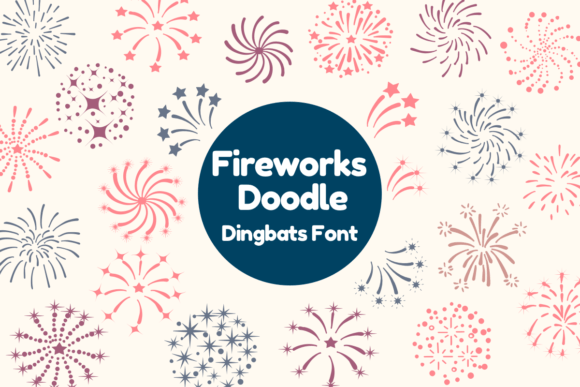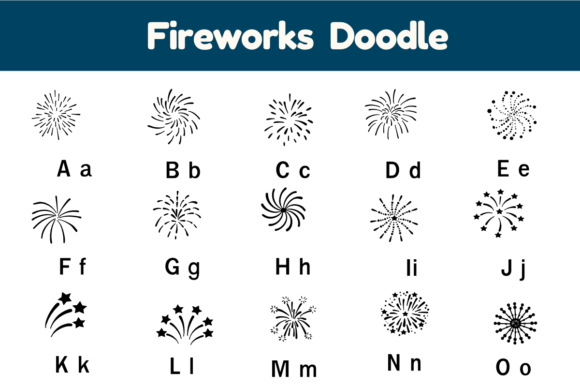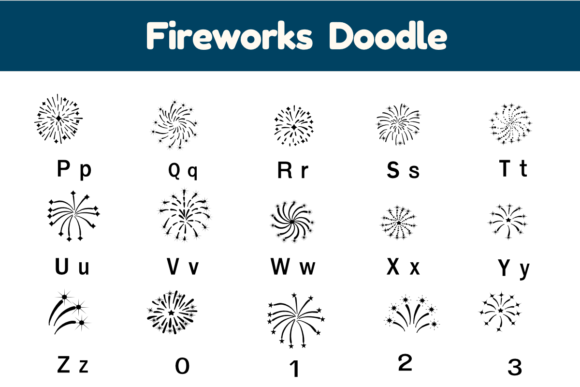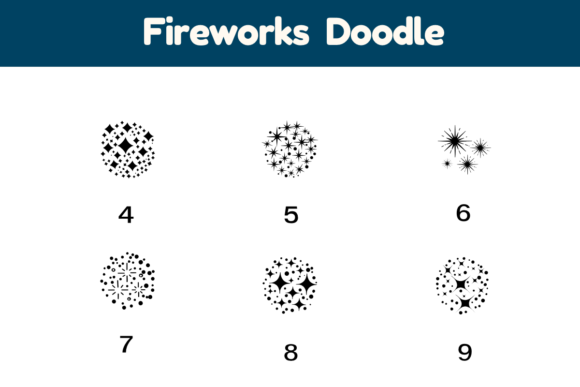
Fireworks Font: A Playful Display Font for Patriotic & Craft Designs
About the Fireworks Font
Welcome to the world of Fireworks Font, a typeface that will inspire your next great project. The 4th of July is almost here, and that means fireworks! Fireworks is a fun, celebratory ornamental font that looks great for thematic craft projects. This font comes with different varieties of fireworks per character, and looks great in a wide range of products.
Fireworks Font’s playful, celebratory style is ideal for headlines, short text blocks on posters, invitations, or packaging for festive products. It also works well in branding for events, children’s products, or companies emphasizing fun and excitement. However, its highly decorative nature makes it unsuitable for body text, long paragraphs, or user interface elements where readability is paramount.
Pairing Fireworks Font effectively requires a contrasting typeface to provide balance. A clean, geometric sans-serif like Montserrat would offer a modern counterpoint, while a classic serif like Garamond would create a more traditional feel. For a bolder look, consider pairing it with a strong, condensed sans-serif.
The font’s overall personality is energetic and celebratory, best suited for projects that convey a feeling of joy and festivity. Avoid using it where sophistication or minimalism is key.
Fireworks Font Usage Examples
Fireworks Font Example